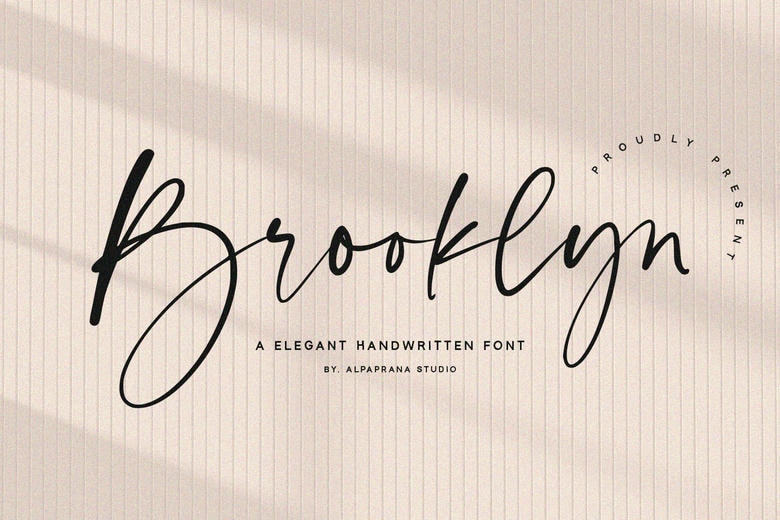
Brooklyn Font
Brooklyn is a sensational handwritten script font that is so urban and alluring. Its smooth, assured lines and glamourous appeal make it ideal in invitations, branding and editorial designs. Brooklyn adds a personal touch to a project, making it elegant and having a contemporary, artisanal touch.
Brooklyn Handwritten Script Font